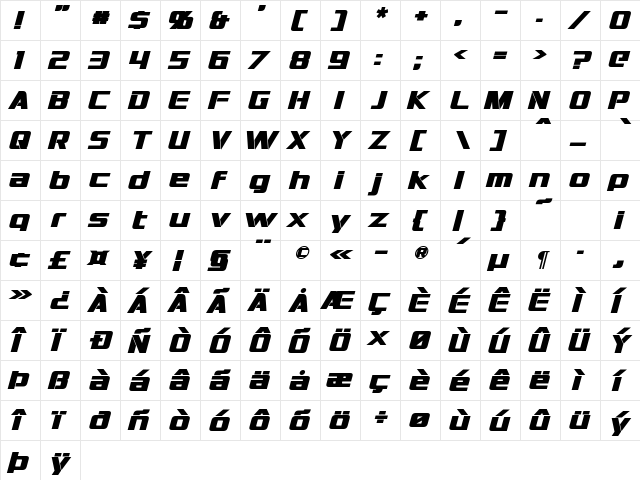
Interceptor Bold Italic Font Preview
Design Context for Interceptor Typeface
Interceptor takes a measured approach to typography — its balanced proportions and neutral character make it a reliable workhorse for both digital and print work. The slanted form adds forward momentum and visual energy. Its bold stroke weight gives it real presence on the page.
Pro Tip: Try Interceptor for annotation and caption copy alongside an upright companion — the contrast in angle creates a dynamic but ordered typographic system.